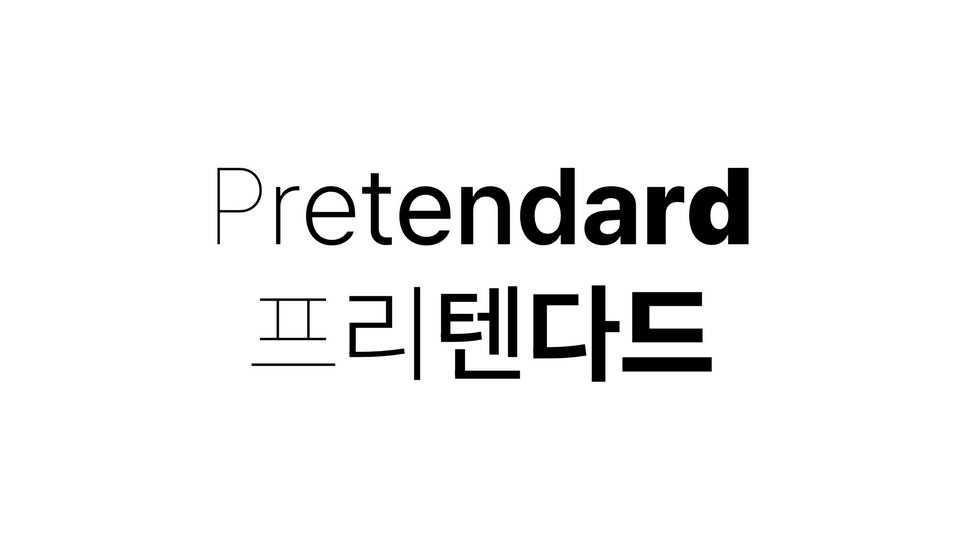
Download Pretendard typeface, a sans serif font family that solves the inconvenience of not having a proper system UI font. Pretendard is available in 9 weights and also supports variable fonts.
Designer: Kil Hyung-jin